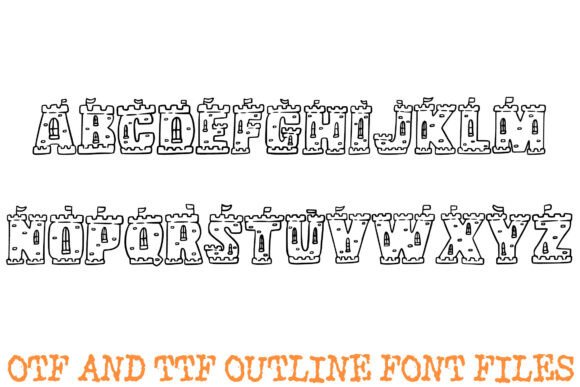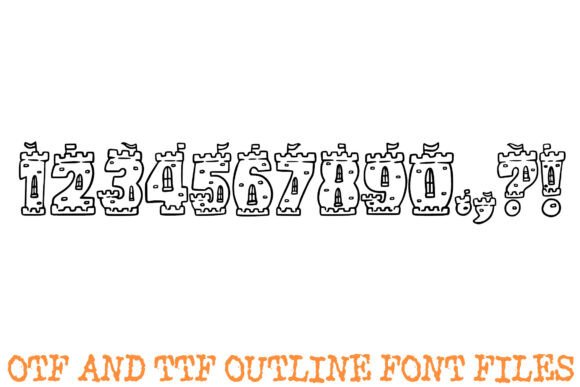
The Castle Turret Font: A Fairytale of Typography
Imagine yourself sitting at your desk, staring at a blank canvas, and suddenly, a burst of creativity hits you – you’re designing a whimsical nursery for a little one’s first bedroom, and the theme is a medieval fairytale kingdom. You want the title of the nursery to transport your child to a world of wonder and magic. That’s where the Castle Turret Font comes in – a hand-drawn decorative alphabet that brings the charm of a medieval fortress to your design.
This unique font is not just a pretty face; it’s a treasure trove of creative possibilities. With its architectural stone details, royal flag accents, and sketchy silhouette, the Castle Turret Font is the ultimate choice for designers who want to add a touch of fantasy to their projects. Whether you’re designing a sign, a logo, or a children’s storybook title, this font is sure to build a sense of wonder into every word.
- Unique Characteristics: Castle Turret Font features a unique blend of medieval and modern elements, with intricate details and ornate flourishes, making it perfect for creating a sense of grandeur and luxury.
- Kerning and Ligatures: Castle Turret Font includes carefully crafted kerning and ligature pairs, ensuring that text sets are visually appealing and easy to read.
- Customization Options: The font family includes various OpenType features, such as stylistic sets, swashes, and ornaments, allowing designers to add a personal touch and create unique typographic compositions.
At first glance, the Castle Turret Font is a unique and eye-catching choice for any project. ✨ The intricate details and ornate flourishes make it perfect for adding a touch of medieval charm to your designs. ✨ The font is highly customizable, allowing you to adjust the size, color, and style to fit your specific needs.
- Unique and attention-grabbing design
- Perfect for adding a touch of medieval charm to your designs
However, there are some limitations to consider. ⚠️ The font can be quite dense and may be difficult to read at smaller sizes. ⚠️ Additionally, the intricate details can make it challenging to pair with other fonts, as it may clash with simpler designs.
- Dense and may be difficult to read at smaller sizes
- May clash with simpler designs due to intricate details
Overall, the Castle Turret Font is a great choice for projects that require a unique and eye-catching design. While it may have some limitations, it’s definitely worth considering for the right project.
Castle Turret Font is perfect for creating a medieval or fantasy-themed design.
Use it to add a touch of elegance and sophistication to your designs.
Experiment with different font sizes and styles to create a unique look.
Castle Turret Font is ideal for:
Creating fantasy-themed invitations and posters.
Designing medieval-inspired menus and brochures.
Adding a touch of elegance to wedding invitations and stationery.